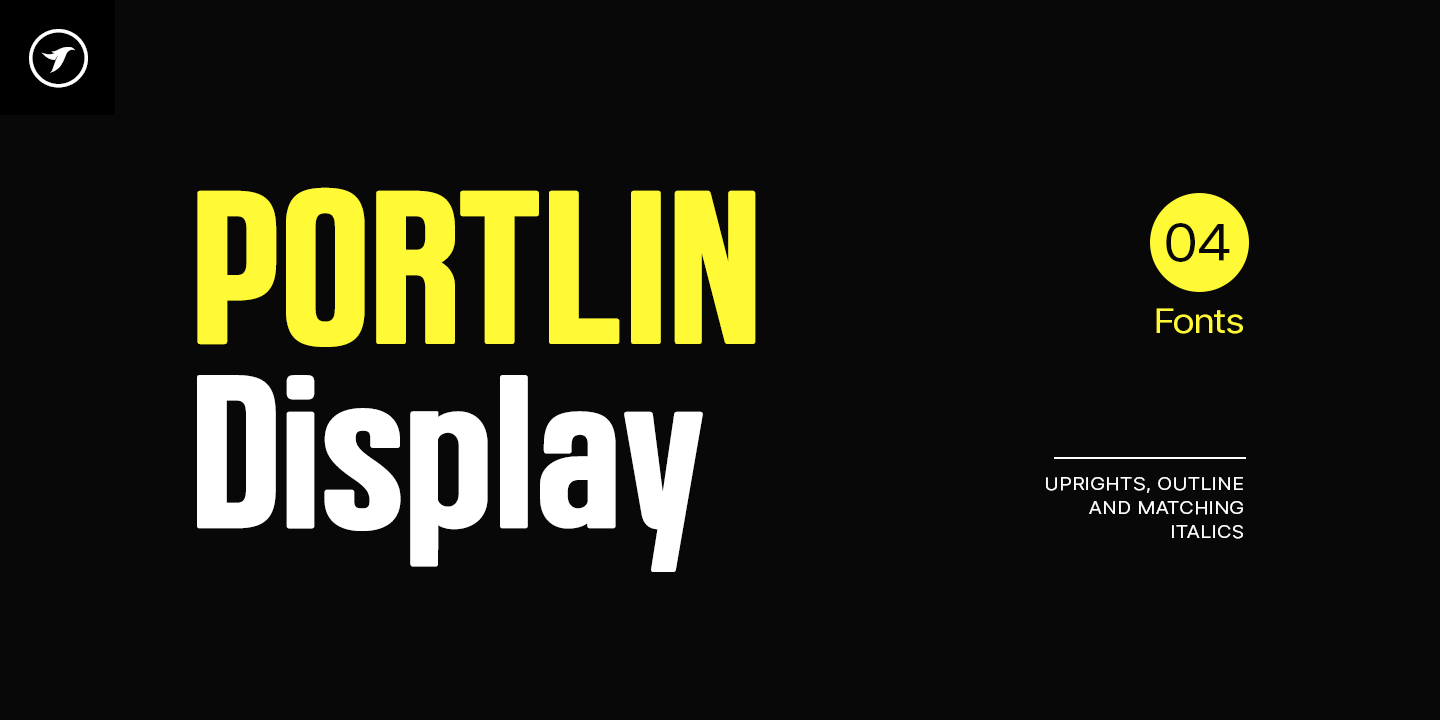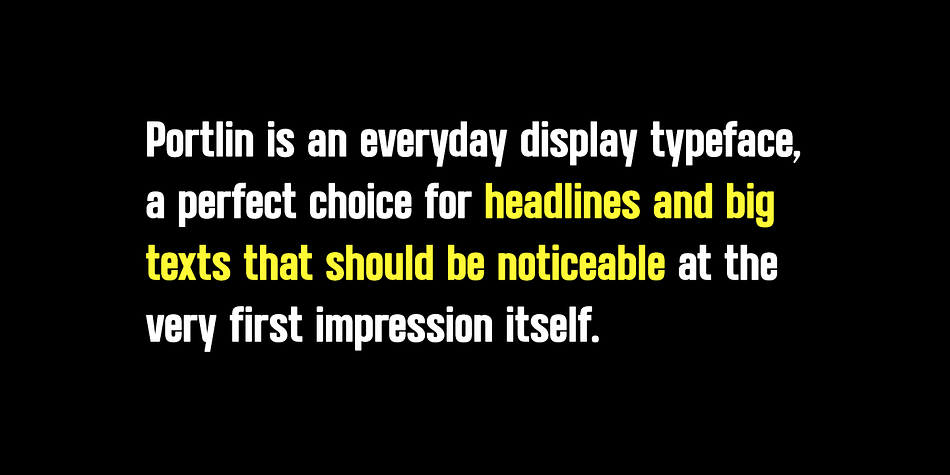
PORTLIN
Designed by Jean P. Johnson, PORTLIN is a sans serif font family. This typeface has four styles and was published by Fontastica.
Portlin is a modern display typeface perfect for headlines, big text, branding, logotypes & graphic design purposes such as posters, flyers and advertisements. This font can be an excellent choice for creating outstanding logos, promotional content, and marketing presentations that can bring uniqueness and freshness at its level best.
The font is very flexible in terms of your creativity, you can adjust the letterspacing to design unique textual presentations, especially for creating amazing logotypes and branding designs. Please see the examples shown above to get an idea of the capability of this typeface.
Portlin family includes 4 fonts (Regular / Italic / Outline / Outline Italic).